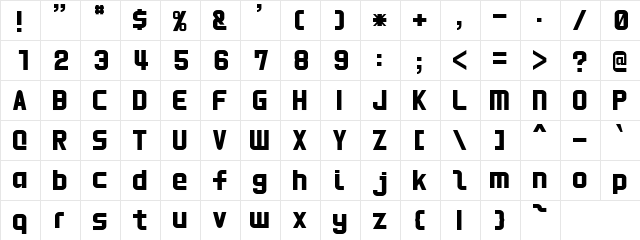
HNkani Medium
Design Context for HNkani Typeface
HNkani is a composed and adaptable typeface that performs quietly and consistently across a wide range of design contexts.
Pro Tip: Use HNkani in both headline and body roles to test its range before committing to a single application.